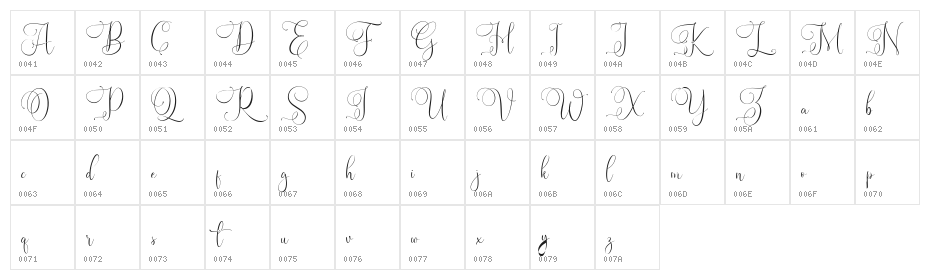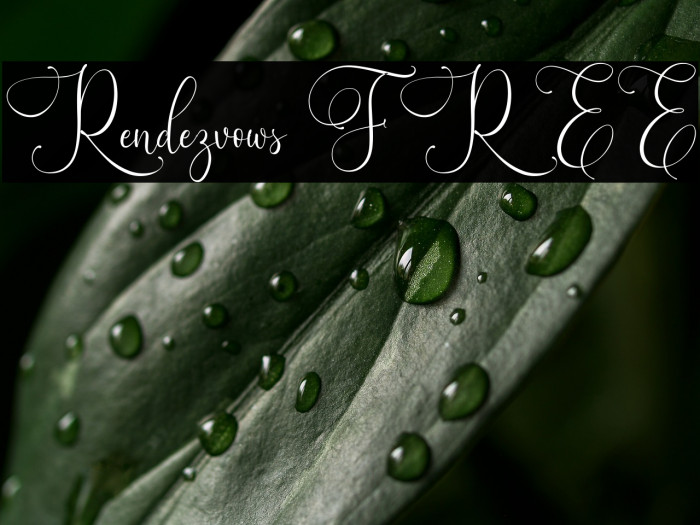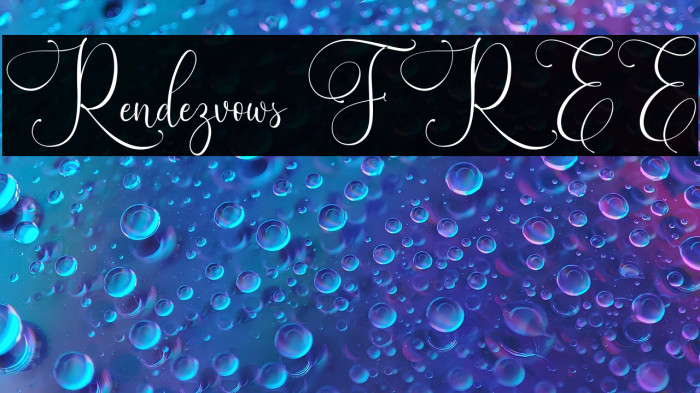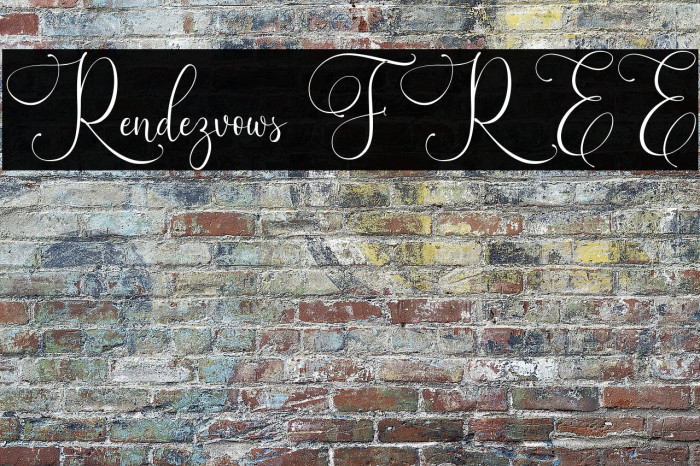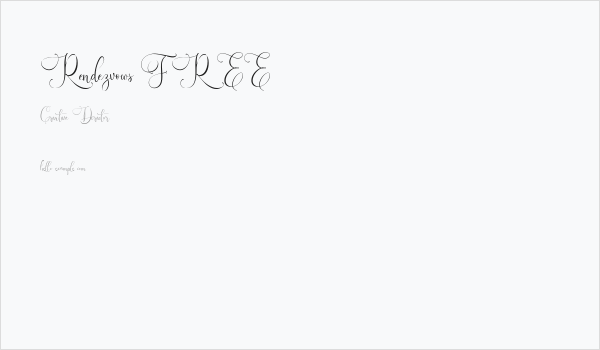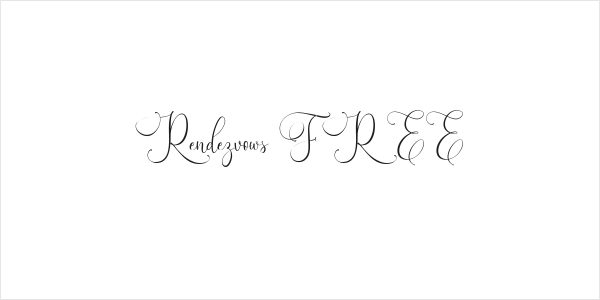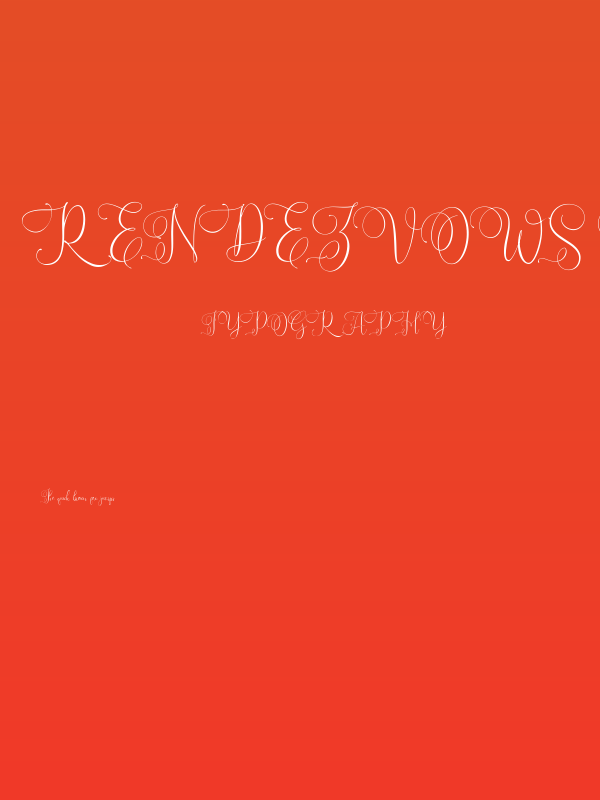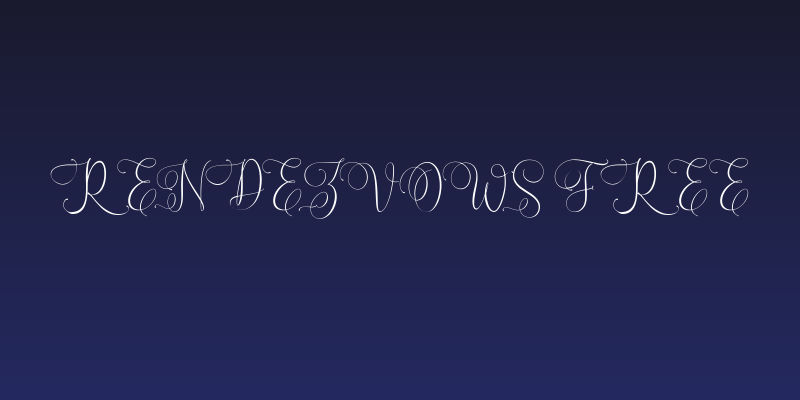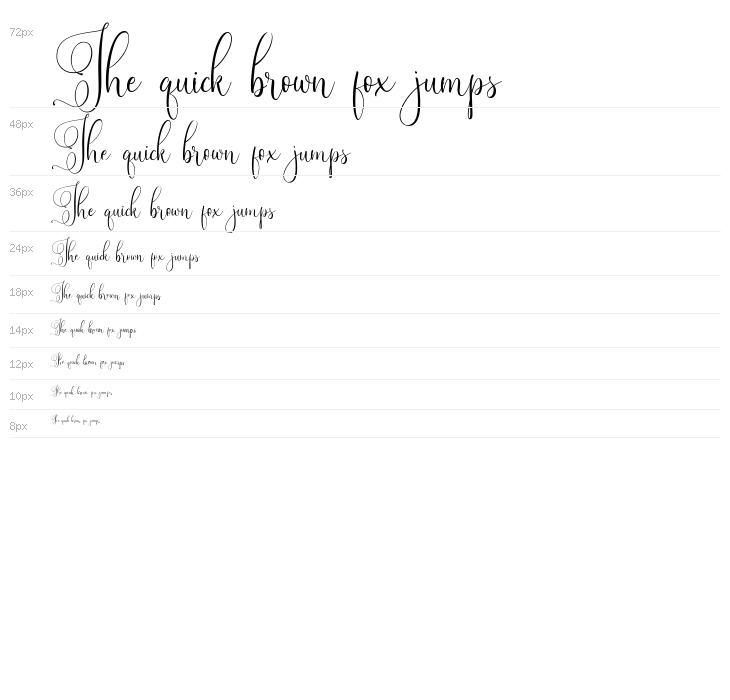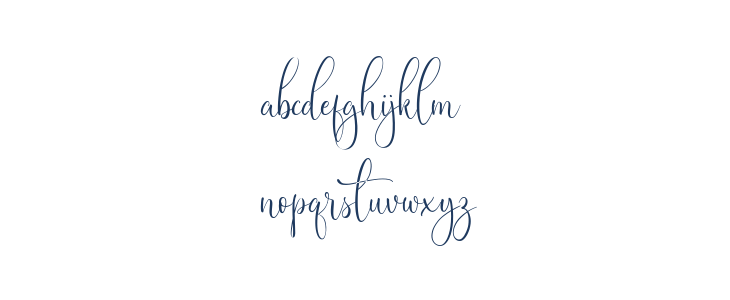
Rendezvows FREE Font
Rendezvows FREE Description
This font exhibits an elegant and sophisticated script style, characterized by its flowing and intricate letterforms. The uppercase letters are adorned with elaborate swashes and flourishes, giving them a decorative and ornate appearance. The lowercase letters maintain a graceful and fluid design, with smooth curves and delicate connections between strokes. The overall aesthetic is reminiscent of classic calligraphy, making it suitable for formal and artistic applications. The font's design is consistent throughout, with a harmonious balance between the thick and thin strokes, adding to its refined and polished look.
| Proposed Projects | Ideal for wedding invitations, elegant branding, greeting cards, and decorative signage. |